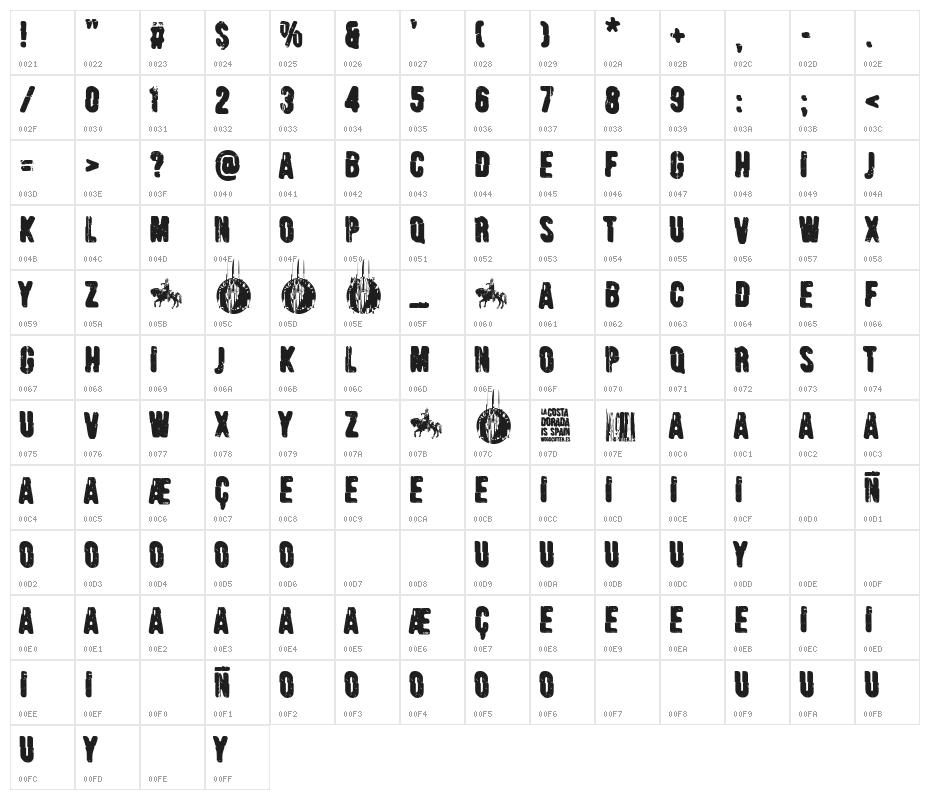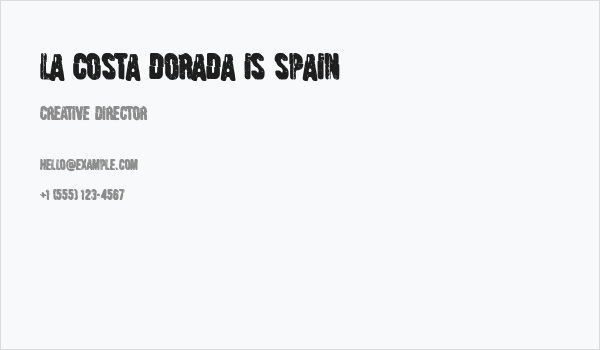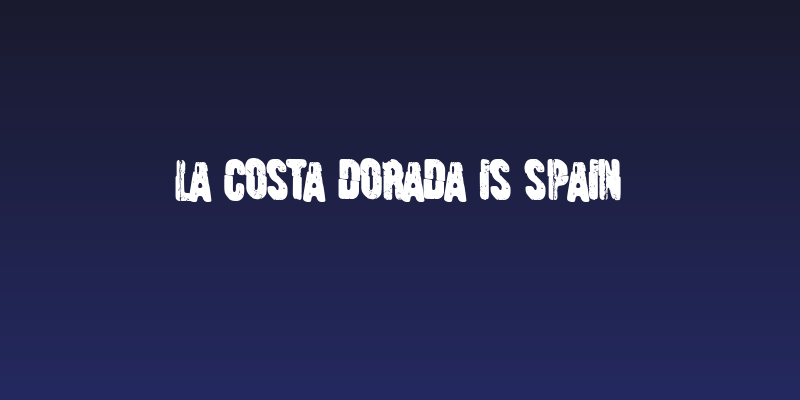
La Costa Dorada is Spain Font
La Costa Dorada is Spain Description
This font features a bold, distressed style with a rugged, textured appearance. The characters are heavily weighted, giving them a strong presence, while the rough edges and irregularities add a vintage, worn-out feel. The uppercase and lowercase letters maintain a consistent height, enhancing readability despite the distressed effect. Numbers and special characters are equally bold and textured, making them suitable for impactful designs. The font's unique style is reminiscent of old posters or signage, evoking a sense of nostalgia and authenticity.
| Proposed Projects | Ideal for vintage-themed posters, album covers, branding for rustic or industrial products, and any design needing a bold, nostalgic touch. |